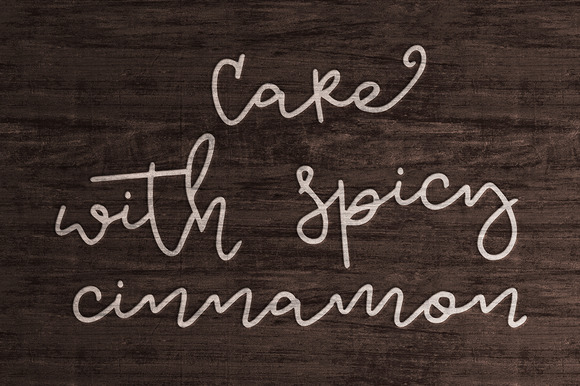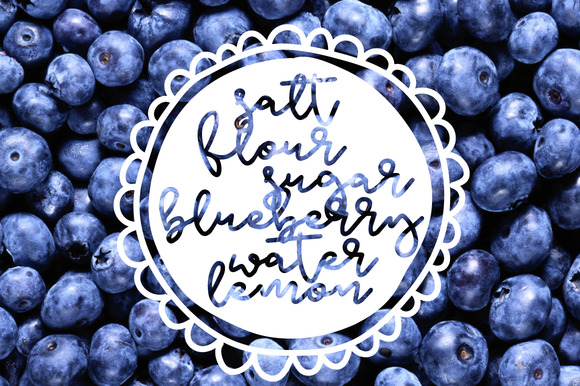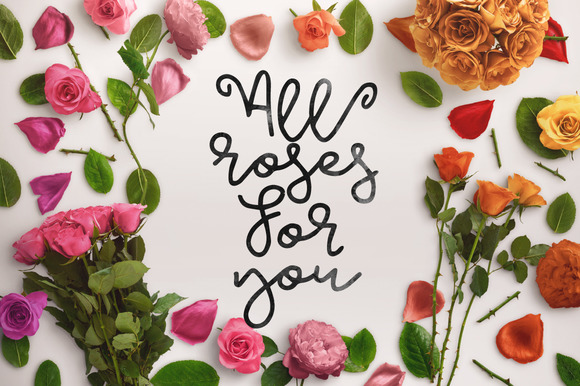
Unleash Your Creativity with Air Wooster Font
Have you ever found yourself scribbling in a notebook, trying to capture the perfect phrase or quote? Maybe it’s a quote from your favorite book, a love message to your partner, or a motivational mantra to kick-start your day. Whatever it is, there’s something magical about the way handwritten words can convey emotion and personality. This is exactly what inspired the creation of Air Wooster Font, a beautiful, hand-lettered script font that brings a touch of modern elegance to any design project.
Air Wooster Font is a versatile tool for designers, perfect for creating eye-catching headings, logos, and even custom wedding invitations. Its unique blend of modern and classic elements makes it an excellent choice for a wide range of applications, from t-shirts and letterheads to signages and labels. Whether you’re a seasoned designer or a creative enthusiast, Air Wooster Font is an invaluable addition to your toolkit.
Key Features of Air Wooster Font
• Unique Characteristics: Air Wooster Font features a unique blend of modern and vintage elements, with a distinctive geometric shape and subtle texture that adds depth and character to any design.
• Font Style: The font comes in three styles: Regular, Bold, and Italic, allowing designers to create a range of visual effects and emphasis.
• Language Support: Air Wooster Font supports a wide range of languages, including Latin, Cyrillic, and Greek scripts, making it suitable for international designs and publications.
Designer Review: Air Wooster Font
The Air Wooster Font has a certain charm to it. Its unique blend of modern and vintage styles ✨ catches the eye, making it a great choice for designers looking for something quirky and attention-grabbing.
• Customizable: The font has a range of options for adjusting the style and texture, allowing designers to fine-tune the look to suit their needs.
• Legibility: Despite its unique design, the font is surprisingly legible, making it suitable for a variety of applications.
However, the font’s limitations should not be overlooked. ⚠️ One major issue is its limited font size range, which can make it difficult to use for larger or smaller text.
• Font size limitations: The font’s unique design is heavily dependent on its size, and scaling it up or down can result in a loss of clarity or distortion.
• Lack of variations: While the font has some customization options, it would benefit from more variations in style and texture to keep it feeling fresh and modern.
Overall, the Air Wooster Font is a great choice for designers looking to add some personality to their projects. While it may have some limitations, its unique style and customization options make it a great asset to have in your design toolkit.